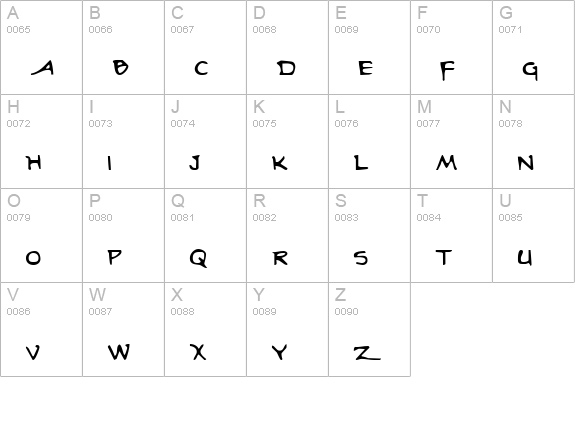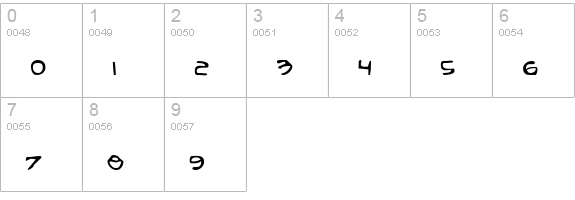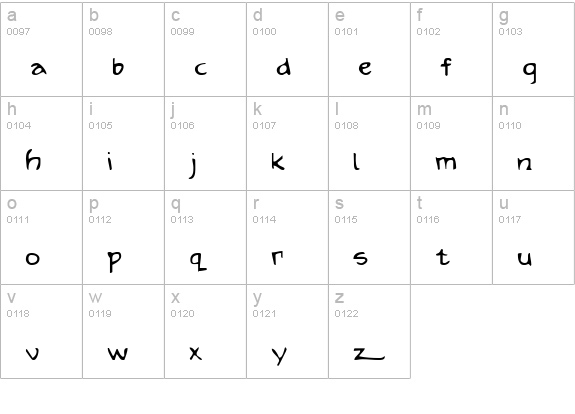
Arilon font is a stunning typeface that exudes elegance and sophistication. Its unique design features calligraphic elements combined with modern typography, creating a harmonious blend of classic and contemporary styles. The flowing lines and graceful curves of Arilon make it perfect for adding a touch of refinement to any project. Best of all, Arilon font is available for free download at FontsMarket.com! This means you can easily access this beautiful font and use it in your designs without any cost. Whether you are working on a branding project, wedding invitation, or any other creative endeavor, Arilon font will surely elevate your work to the next level. Don't miss out on the opportunity to enhance your designs with this exquisite typeface - download Arilon now and let your creativity shine!